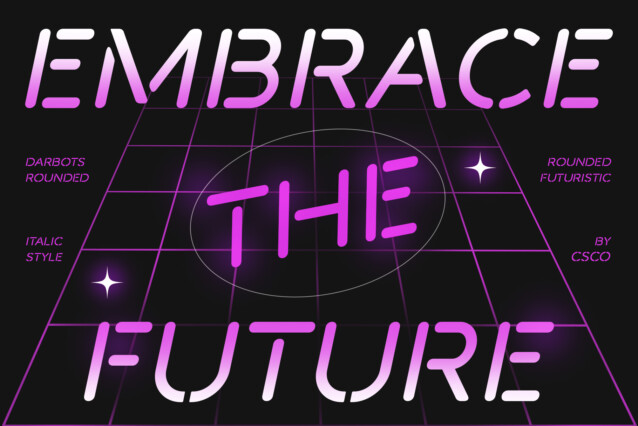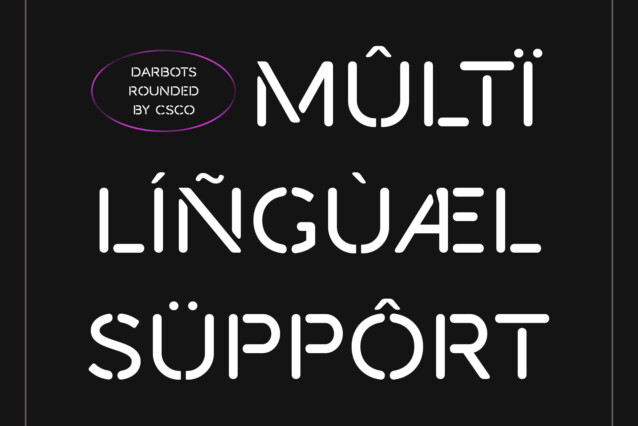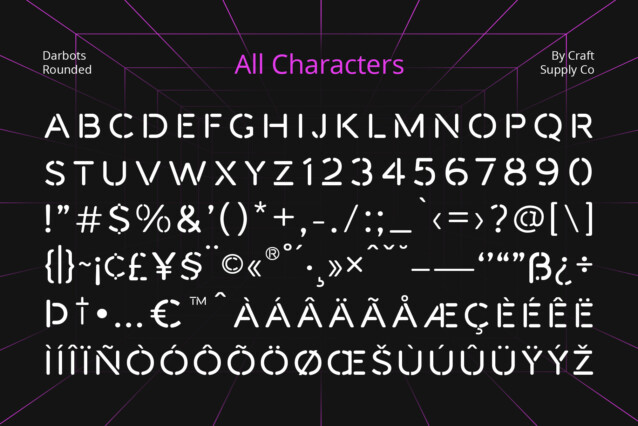
Darbots Rounded Font
Darbots Rounded Font is a sleek sans serif stencil design that exudes modernity and sophistication. Its clean lines and minimalistic appearance make it perfect for contemporary projects.
Low Contrast Appeal With its low contrast style, This font offers a subtle yet impactful aesthetic. The balanced contrast ensures legibility while maintaining a modern and streamlined look.